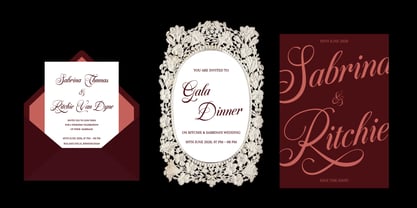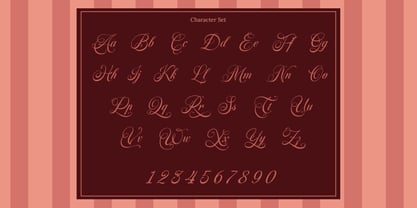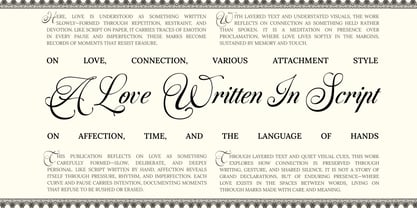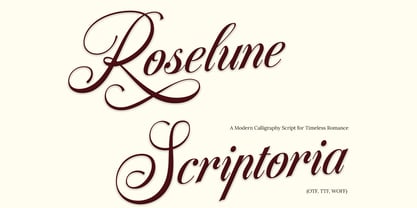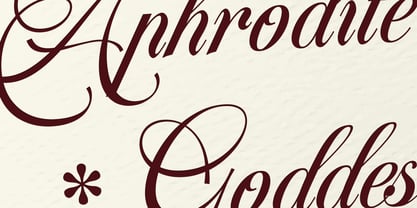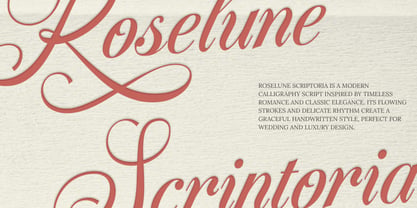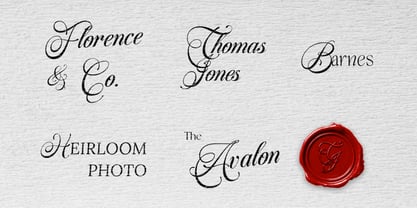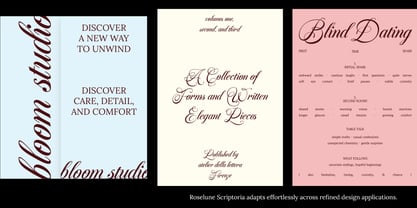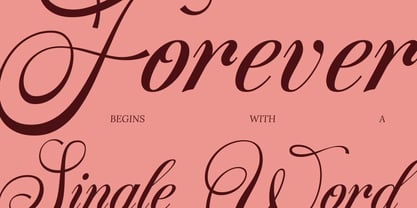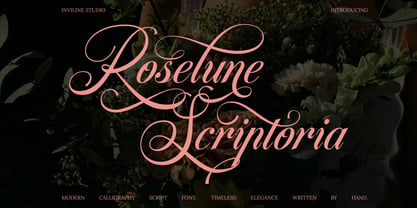
Roselune Scriptoria
Die Schriftfamilie Roselune Scriptoria wurde von Virgiawan Listanto entworfen und von Inviline veröffentlicht. Roselune Scriptoria enthält 1 Stile. Mehr über diese Familie
Roselune Scriptoria is a modern calligraphy script font that embodies timeless romance and classic elegance. With its flowing strokes, intricate ligatures, and delicate curves, this font exudes a handwritten charm perfect for wedding invitations, love letters, luxury branding, and poetic editorials. Its elegant yet expressive style infuses soft sophistication into every design touchpoint, making it a versatile choice for various creative projects. Whether crafting a heartfelt message or enhancing a brand's identity, Roselune Scriptoria elevates aesthetics with its unique character and refined beauty.